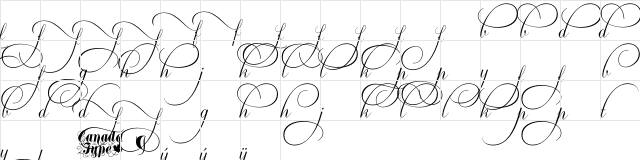
Ambassador Script Swashes Regular
| Foundry | Canada Type |
| Designer | Rebecca Alaccari |
Design Context for Ambassador Script Swashes Typeface
Ambassador Script Swashes flows with the natural rhythm of handwritten lettering, making it ideal for designs that call for warmth and personal expression.